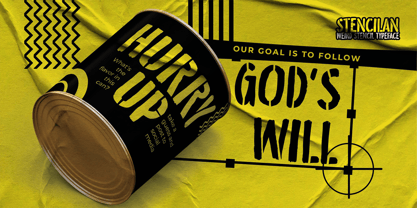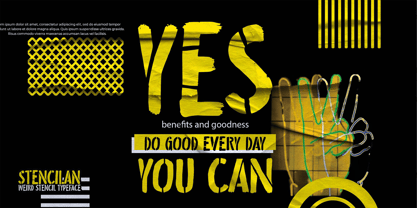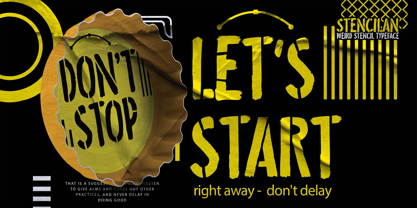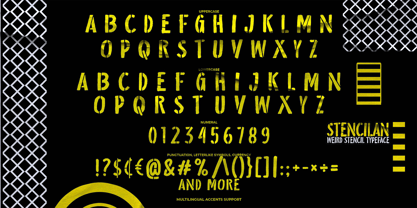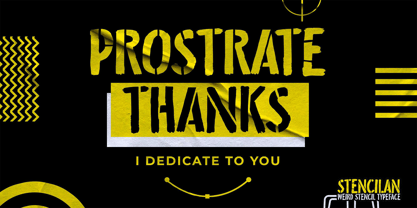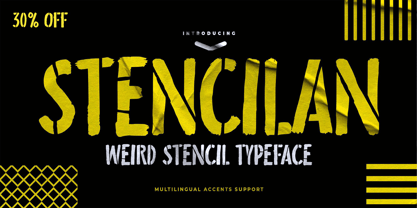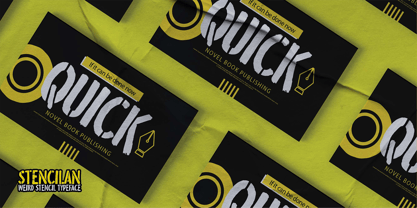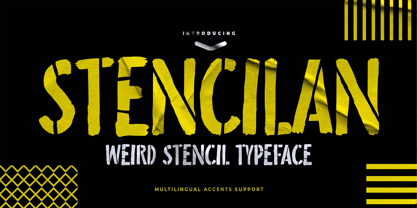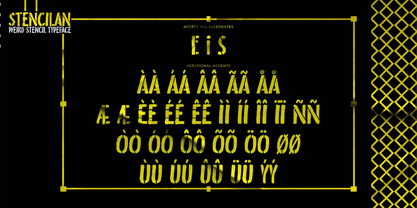
Stencilan
von Almarkha Type
Die Schriftfamilie Stencilan wurde von Abdul Malik Wisnu entworfen und von Almarkha Type veröffentlicht. Stencilan enthält 1 Stile. Mehr über diese Familie
STENCILAN is a unique and expressive stencil typeface featuring bold, raw, and hand-cut characters. Its rugged textures, irregular cuts, and artistic imperfections create an edgy, industrial, and creative vibe—ideal for projects seeking a strong, experimental visual identity. Designed with a handcrafted, urban feel, each letter exudes a powerful artistic presence, making STENCILAN perfect for designs that embrace street-style aesthetics, alternative layouts, and bold display headlines.
Designer: Abdul Malik Wisnu
Aktuelle Foundry: Almarkha Type